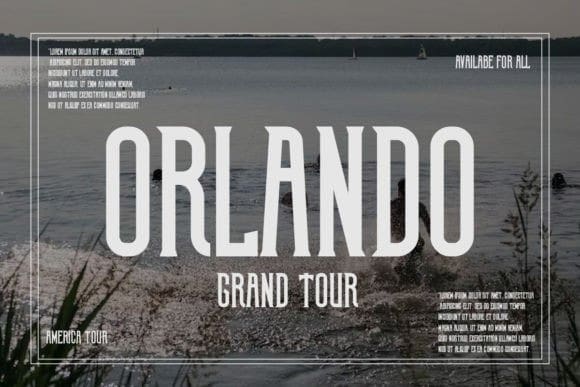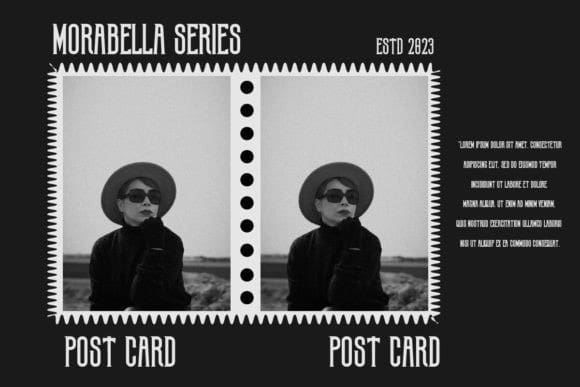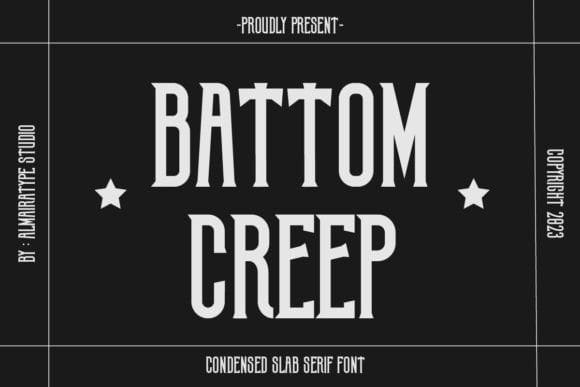
Battom Creep Font
Battom Creep Font is a manly and modern slab serif font. font with a spooky and sharp touch. fonts suitable for labels, movie titles, svg crafts, Etsy branding, printing, invitations, t-shirts, web, Cricut, Christmas, and many other ideas. Fonts that are compatible with various software such as Photoshop and Silhouette design projects. suitable for crafters and graphic designers.